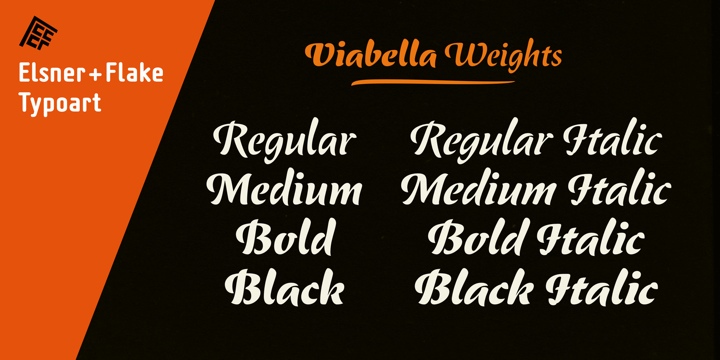
ViabellaT H Pro Font
ViabellaT H Pro Font is perfect for professional beauty brands, luxury cosmetics packaging, sophisticated fashion magazines, elegant spa communications, premium skincare marketing, refined wellness centers, upscale salon branding, beauty industry presentations, aesthetic clinic materials, and distinguished beauty professional communications.
What makes ViabellaT H Pro Font so exciting is its exquisite embodiment of beauty industry sophistication and aesthetic excellence that captures the refined elegance of professional beauty services through meticulously crafted typography designed for the luxury beauty market. This professionally engineered typeface features graceful letterforms with beauty-inspired proportions and aesthetically refined character variations that immediately convey sophistication, quality, and the transformative power of professional beauty expertise. The font's elegant construction and beauty-focused aesthetic create an instant sense of luxury credibility and aesthetic authority, making it ideal for projects that need to communicate beauty excellence, professional aesthetics, and the life-enhancing power of beauty expertise to audiences seeking authentic luxury beauty experiences and meaningful aesthetic transformation.
The ViabellaT H Pro Font family typically includes multiple sophisticated weights and professional styles, often featuring light through bold variations along with elegantly crafted italic versions and beauty-optimized alternatives. Professional beauty font families frequently offer extensive character sets including luxury symbols, aesthetic notation, and beauty industry elements that ensure optimal typography across diverse professional beauty communication requirements and luxury aesthetic applications.
The beauty industry nature of ViabellaT H Pro Font makes it particularly effective for targeting demographics that prioritize aesthetic excellence and professional beauty services in their personal care and wellness choices. Beauty marketers and aesthetic professionals will find this font especially valuable for materials that must establish immediate beauty industry credibility and connect with audiences seeking authentic luxury beauty experiences and meaningful aesthetic enhancement.
What sets ViabellaT H Pro Font apart is its ability to convey professional beauty authority while maintaining the elegance necessary for effective luxury beauty and aesthetic communication. This balanced characteristic makes it suitable for both clinical aesthetic applications and luxury beauty contexts where projecting professional competence and maintaining sophisticated appeal must work together harmoniously.
Professional designers recognize that ViabellaT H Pro Font brings invaluable beauty industry credibility to projects across industries including cosmetics, aesthetic services, luxury wellness, and professional beauty education. Its sophisticated character and aesthetic appeal make it essential for organizations whose mission centers on advancing beauty excellence, promoting aesthetic innovation, and creating meaningful connections between professional beauty expertise and client transformation.
The systematically crafted beauty authenticity of ViabellaT H Pro Font ensures consistent luxury messaging across all beauty-focused communication applications while honoring the fundamental principles of aesthetic excellence and professional beauty standards in contemporary typography.